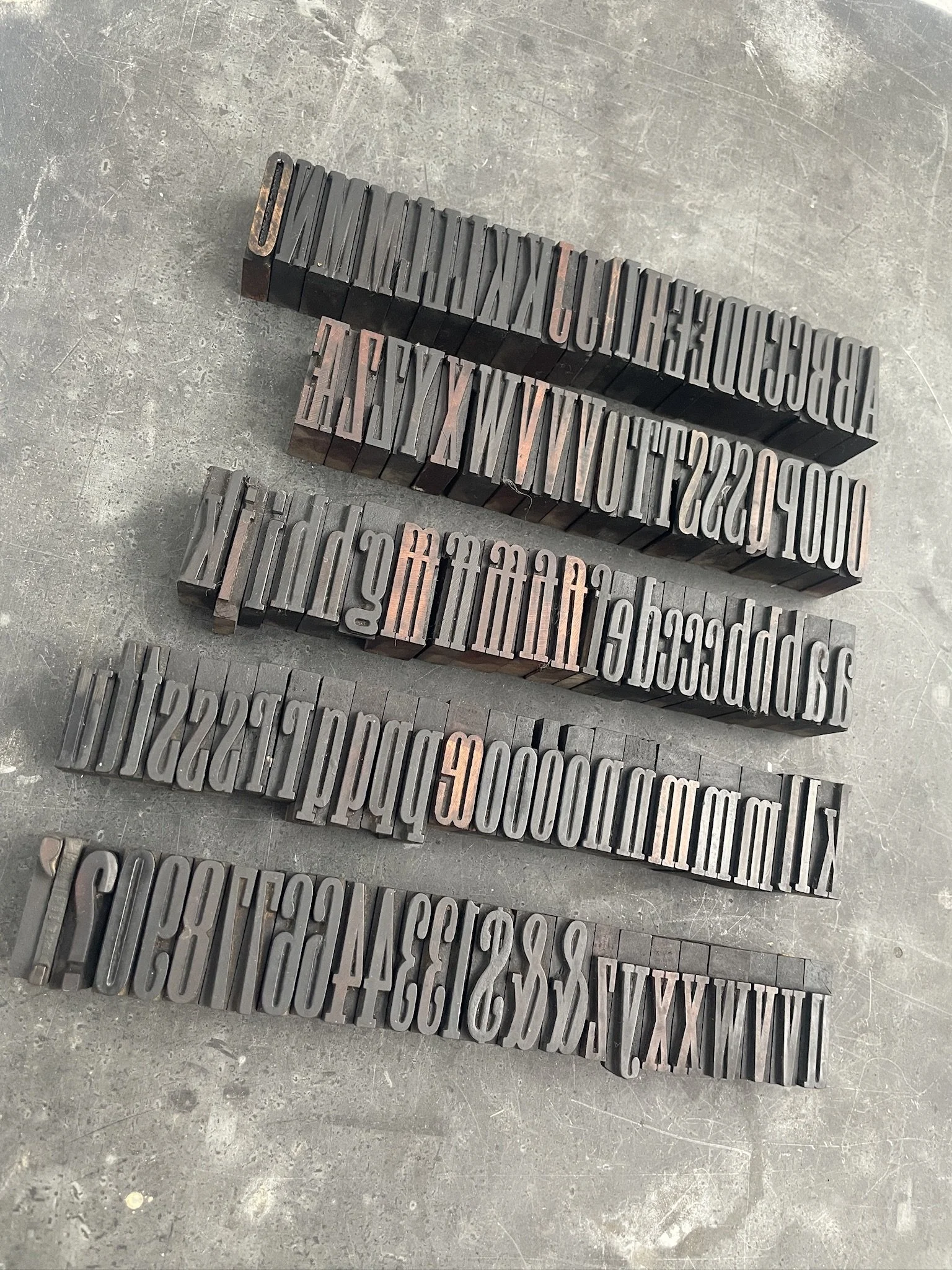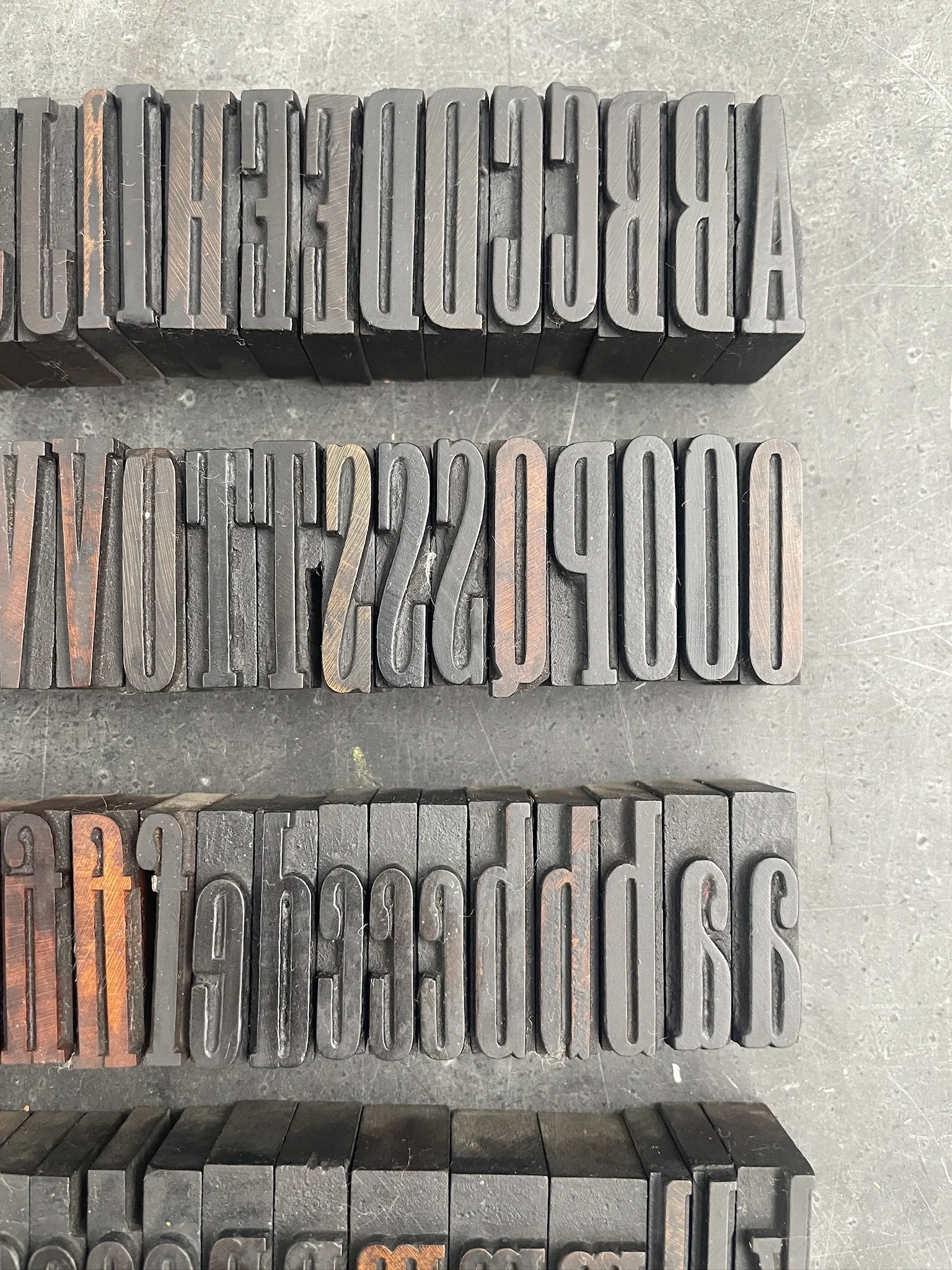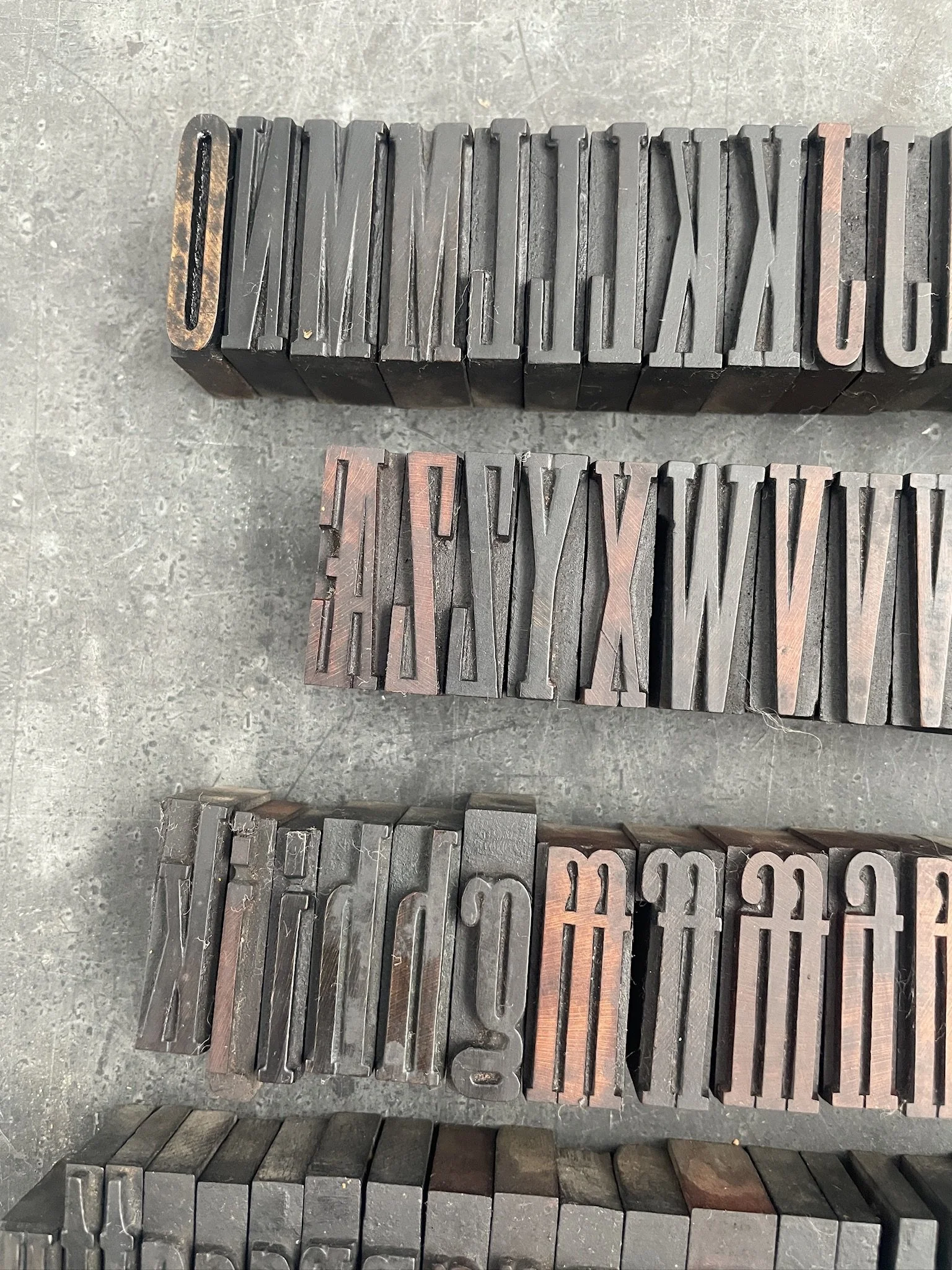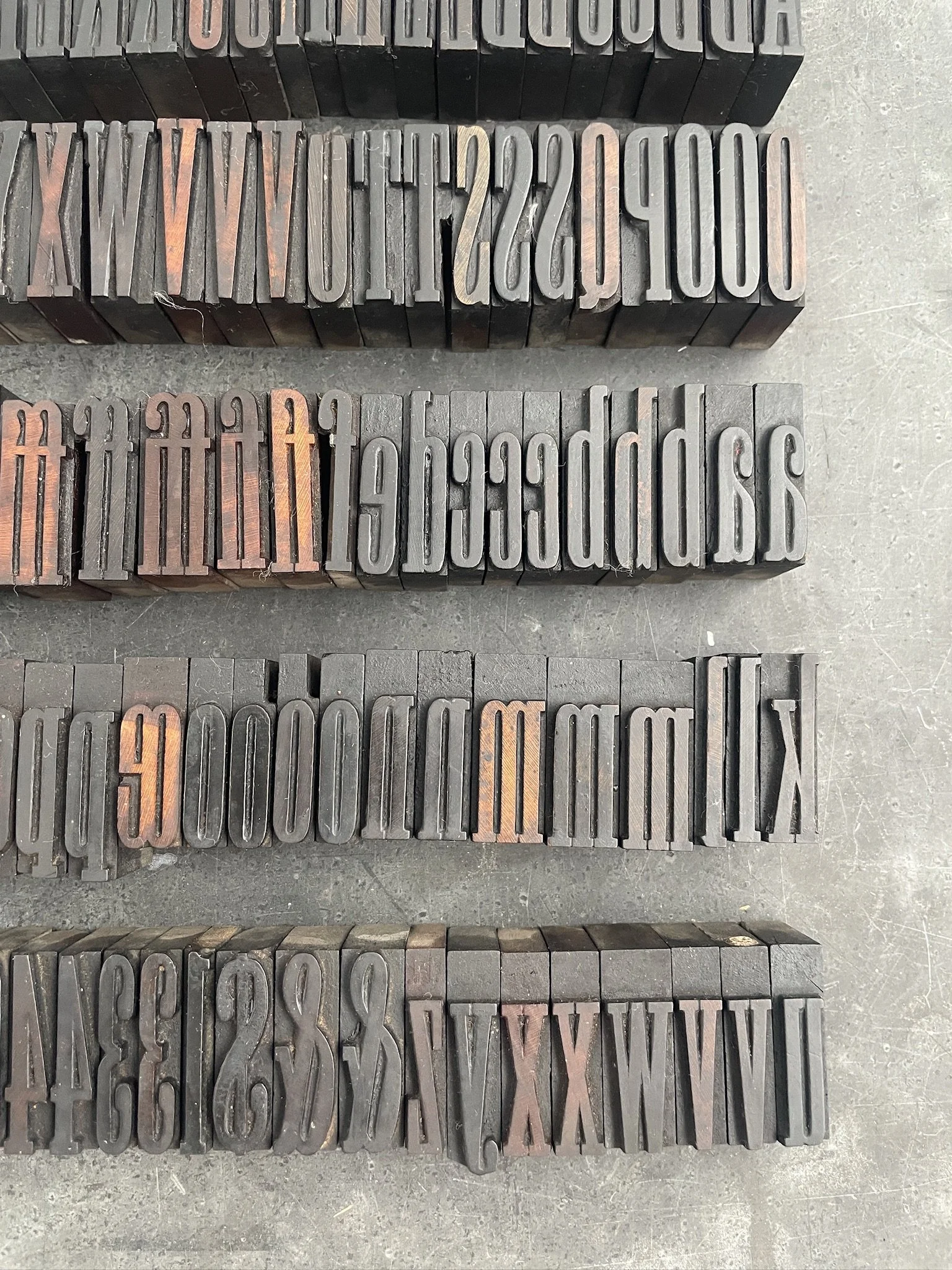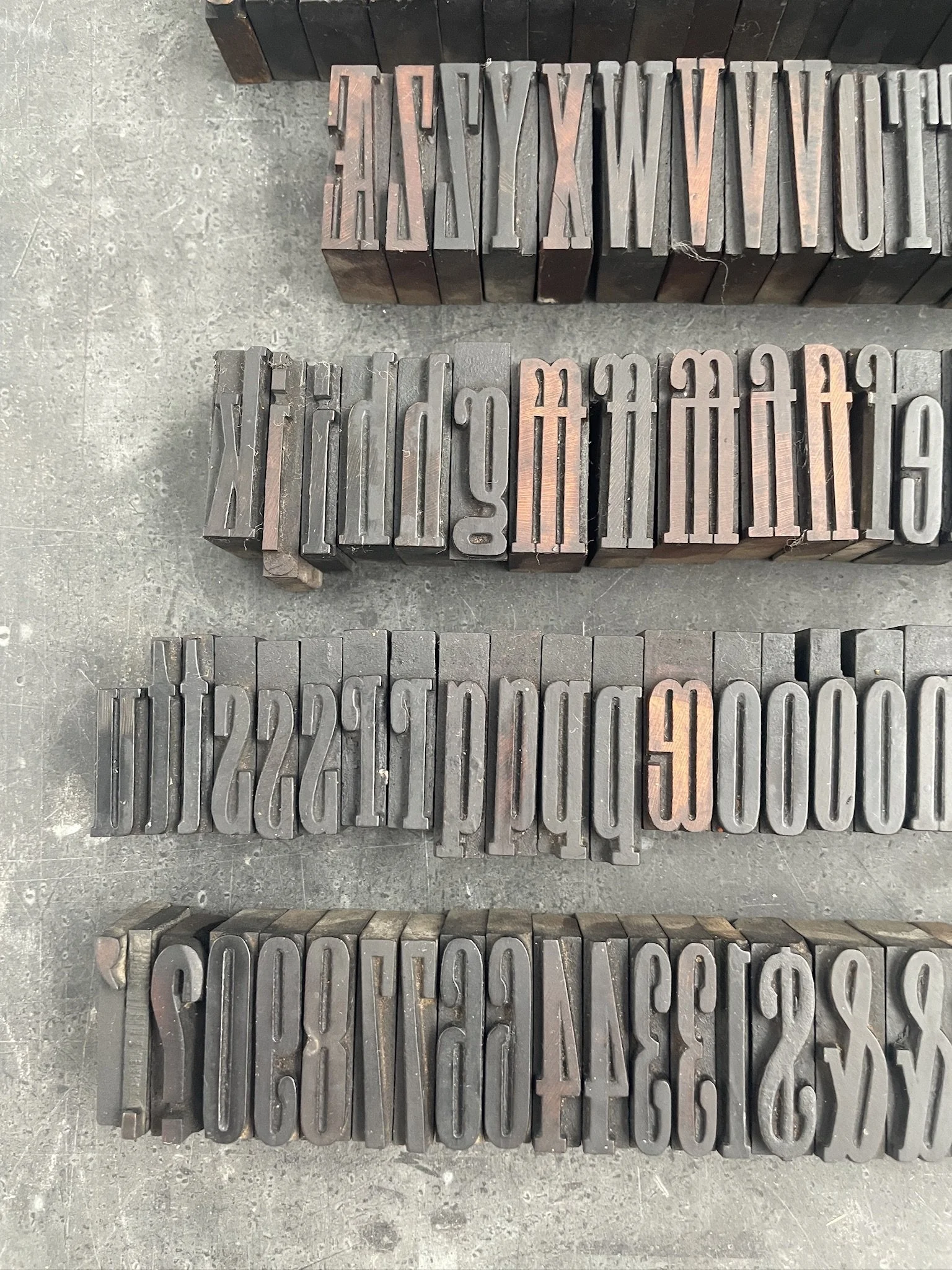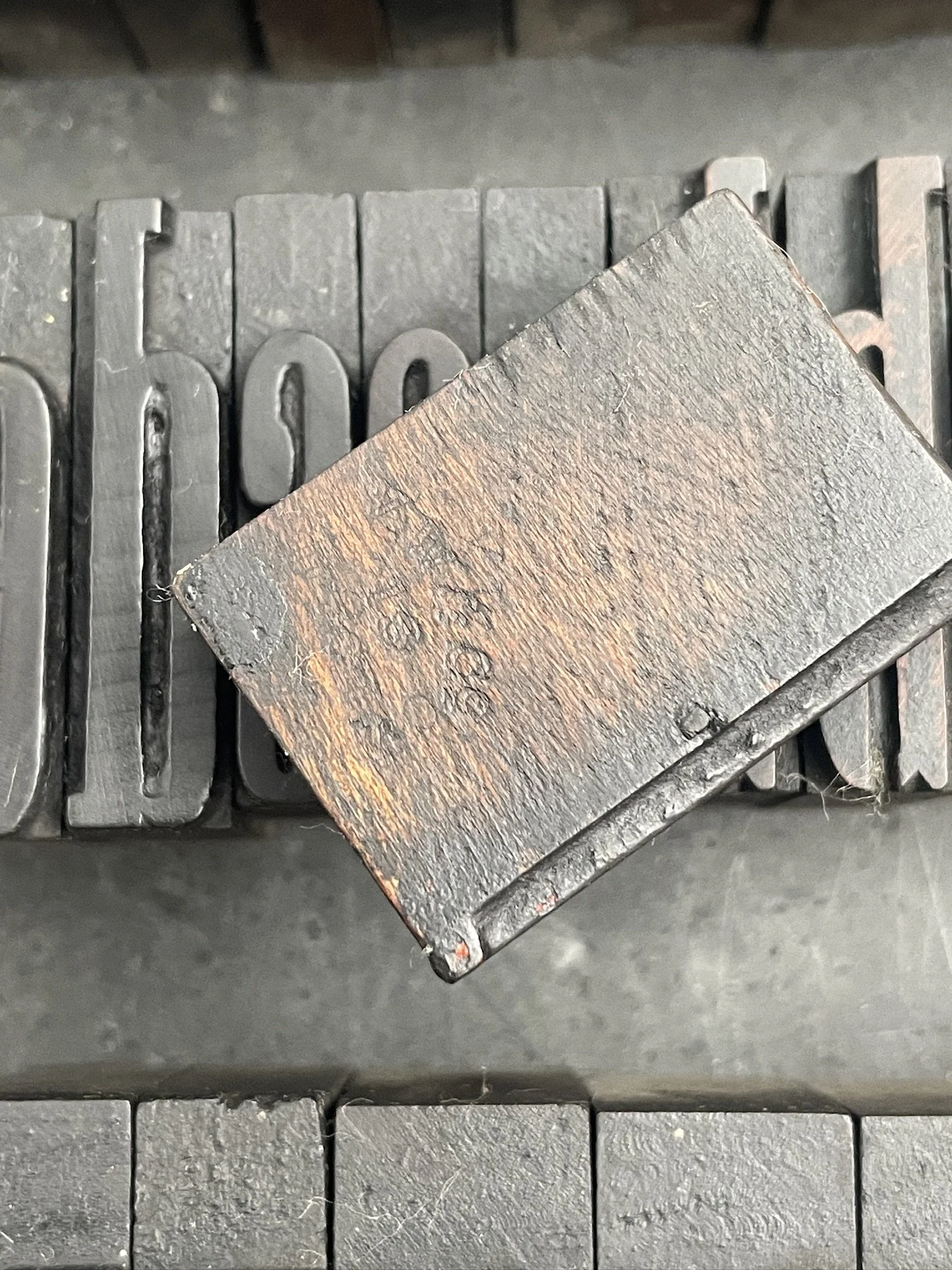
8 Line Clarendon Light Face XX Condensed William Page Wood Type Font (W24)
A beautiful font of Clarendon Light Face XX Condensed bearing the stamp of William Page who first introduced it in his 1859 catalog. Includes all shown.